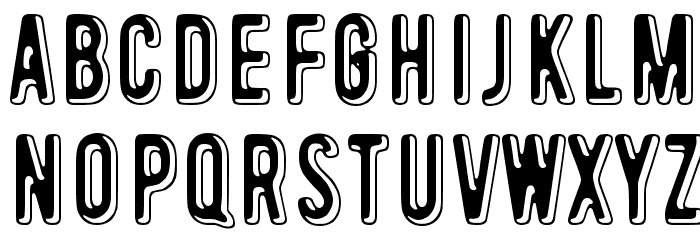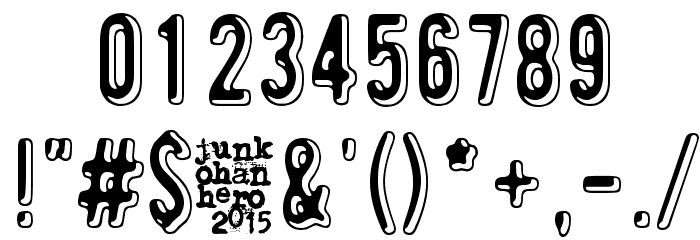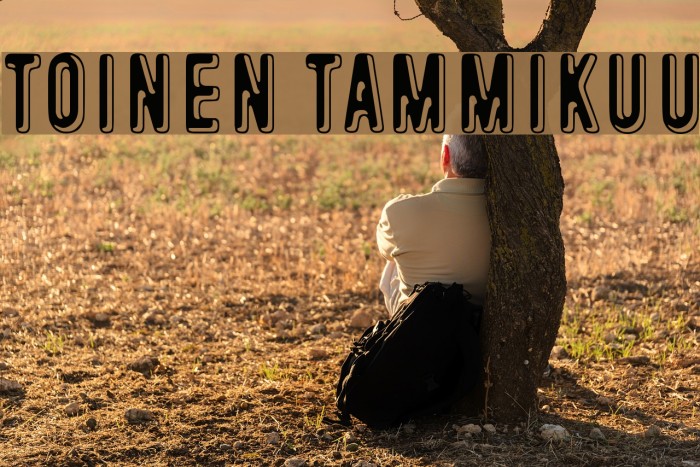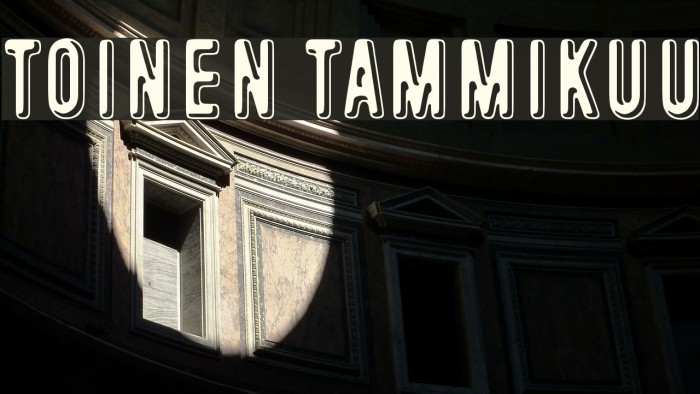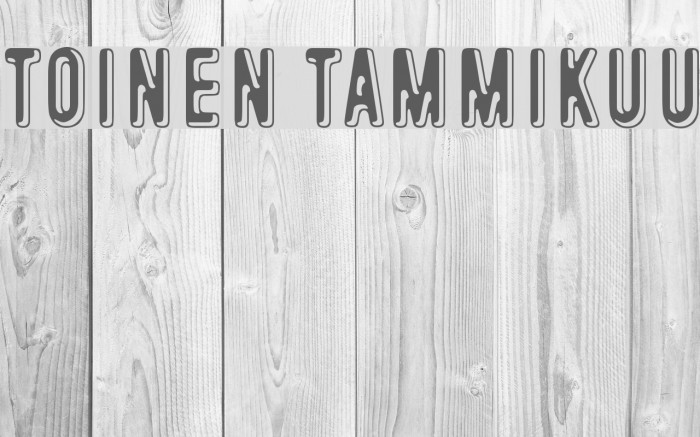
Toinen tammikuu Font
This font features a bold, playful style with a three-dimensional effect created by its shadowed outline. The uppercase and lowercase letters maintain a consistent width, giving a uniform appearance. The characters are rounded and smooth, with a slight retro feel. The numbers and special characters are designed to match the letters, ensuring a cohesive look across all text. The font's unique style makes it stand out, suitable for eye-catching designs.
A bold, playful font with a shadowed, three-dimensional effect.
- Proposed Projects: Ideal for posters, logos, headlines, and any design requiring a bold, attention-grabbing font.
- Overall Style: Retro, Playful